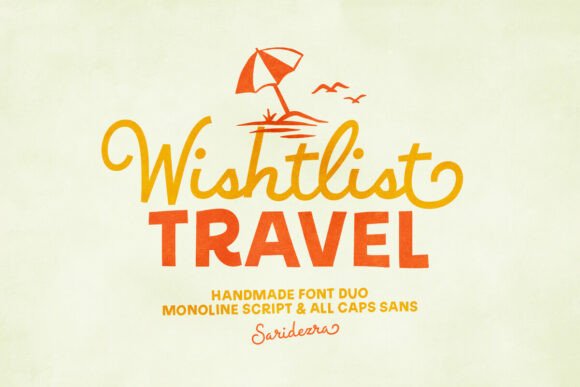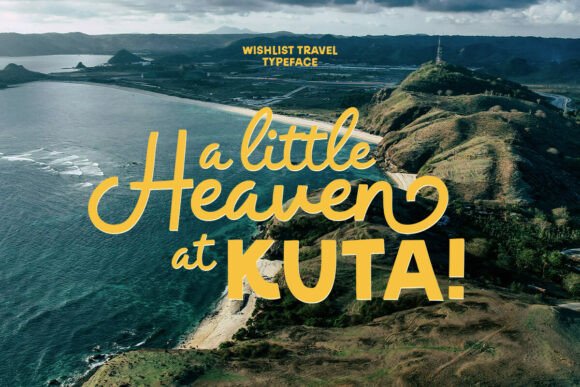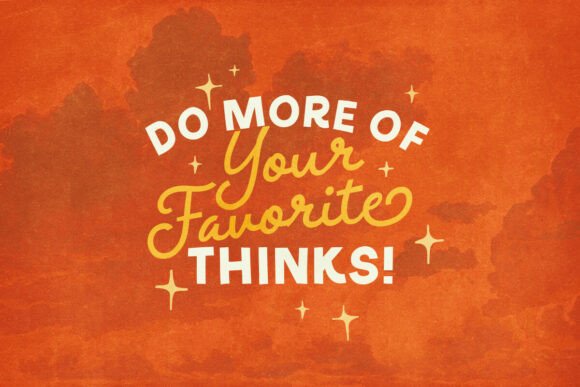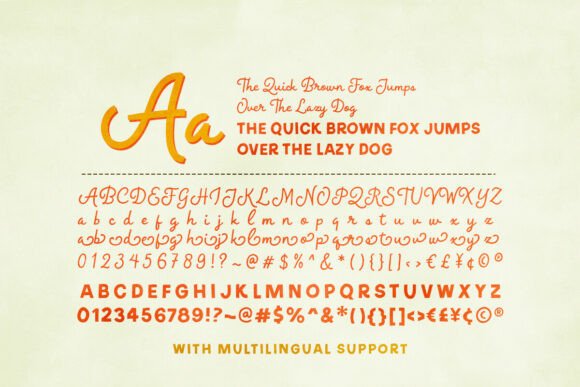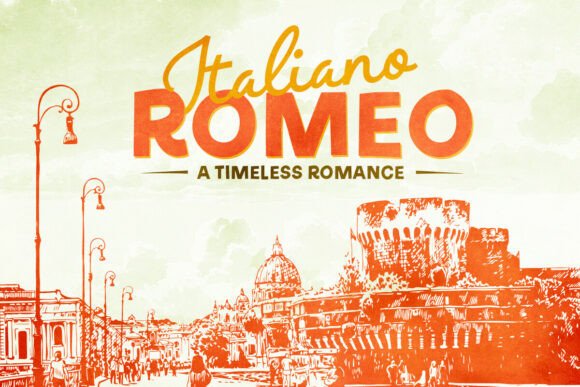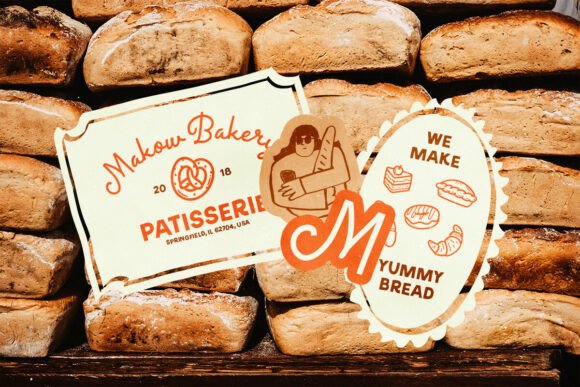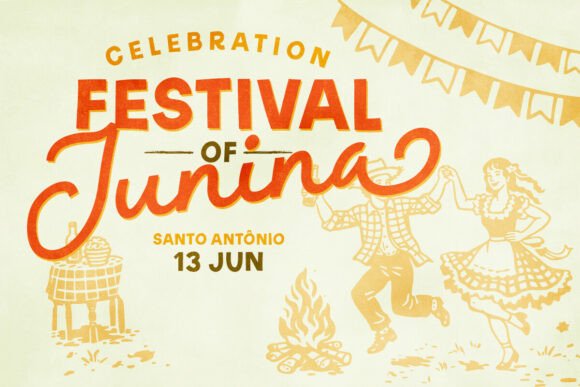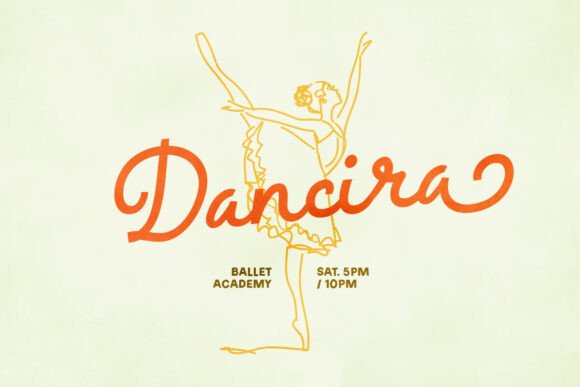
Wishlist Travel Script Fonts
Elevate your creative toolkit with a masterfully paired typographic set designed for soulful storytelling. Wishlist Travel brings together the organic charm of a rhythmic, monoline cursive and the grounded impact of a sturdy sans-serif. This duo radiates a sophisticated, celebratory energy, making it a premier choice for high-end event stationery, seasonal campaigns, distinctive visual identities, and expressive editorial layouts. To ensure a polished and harmonious aesthetic, the script component features elegant terminal flourishes that perfectly counterbalance the uppercase forms for a bespoke finish. From bespoke boutique branding to international projects, its expansive linguistic reach ensures your message resonates across borders with effortless style.